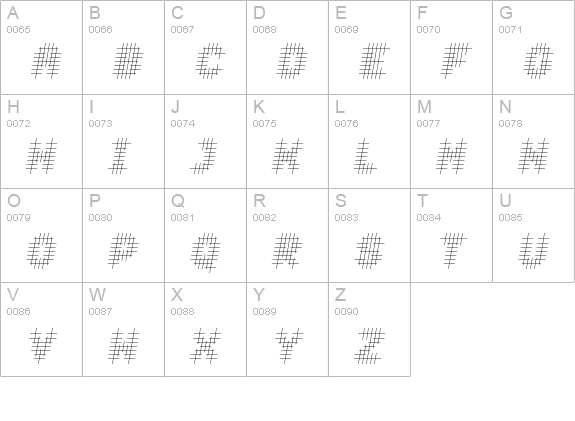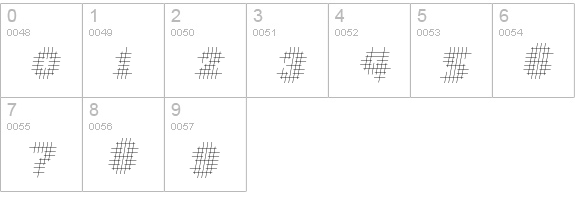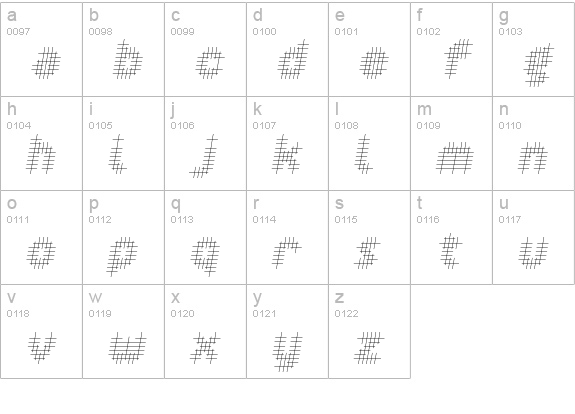
Overcross ExtraLightOblique Font Details
The Overcross ExtraLightOblique font is a sleek and modern typeface that exudes elegance and sophistication. Its delicate and stylish design makes it perfect for adding a touch of refinement to any project. The slanted, oblique style of the font adds a dynamic and contemporary look, making it stand out from the crowd. What sets Overcross ExtraLightOblique apart is that it is not only beautiful but also completely free to use. This means that you can elevate your designs without any added cost. You can easily download Overcross ExtraLightOblique for free at FontsMarket.com, where you will find a wide range of high-quality fonts for all your creative needs. Enhance your projects with the timeless charm of Overcross ExtraLightOblique today!